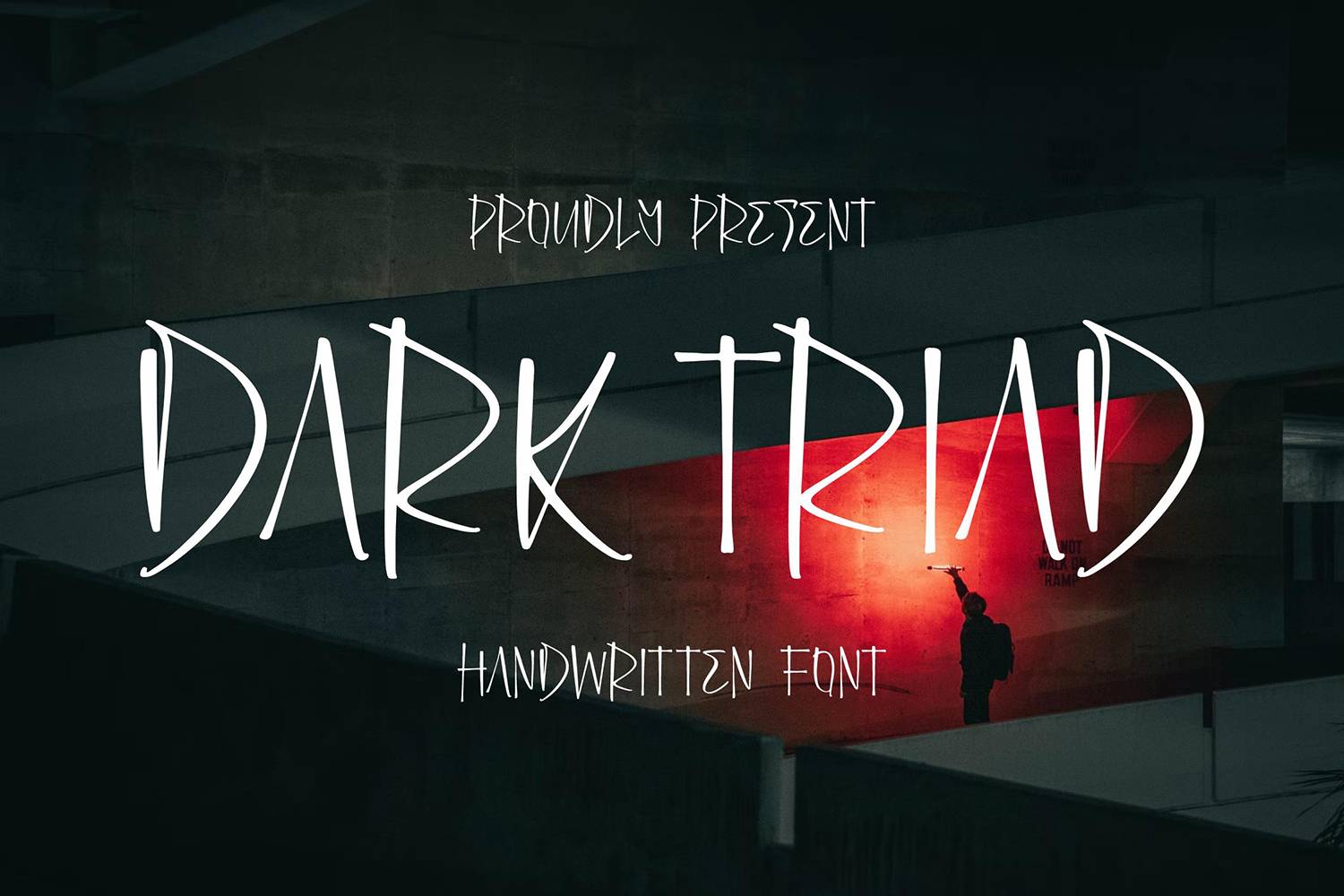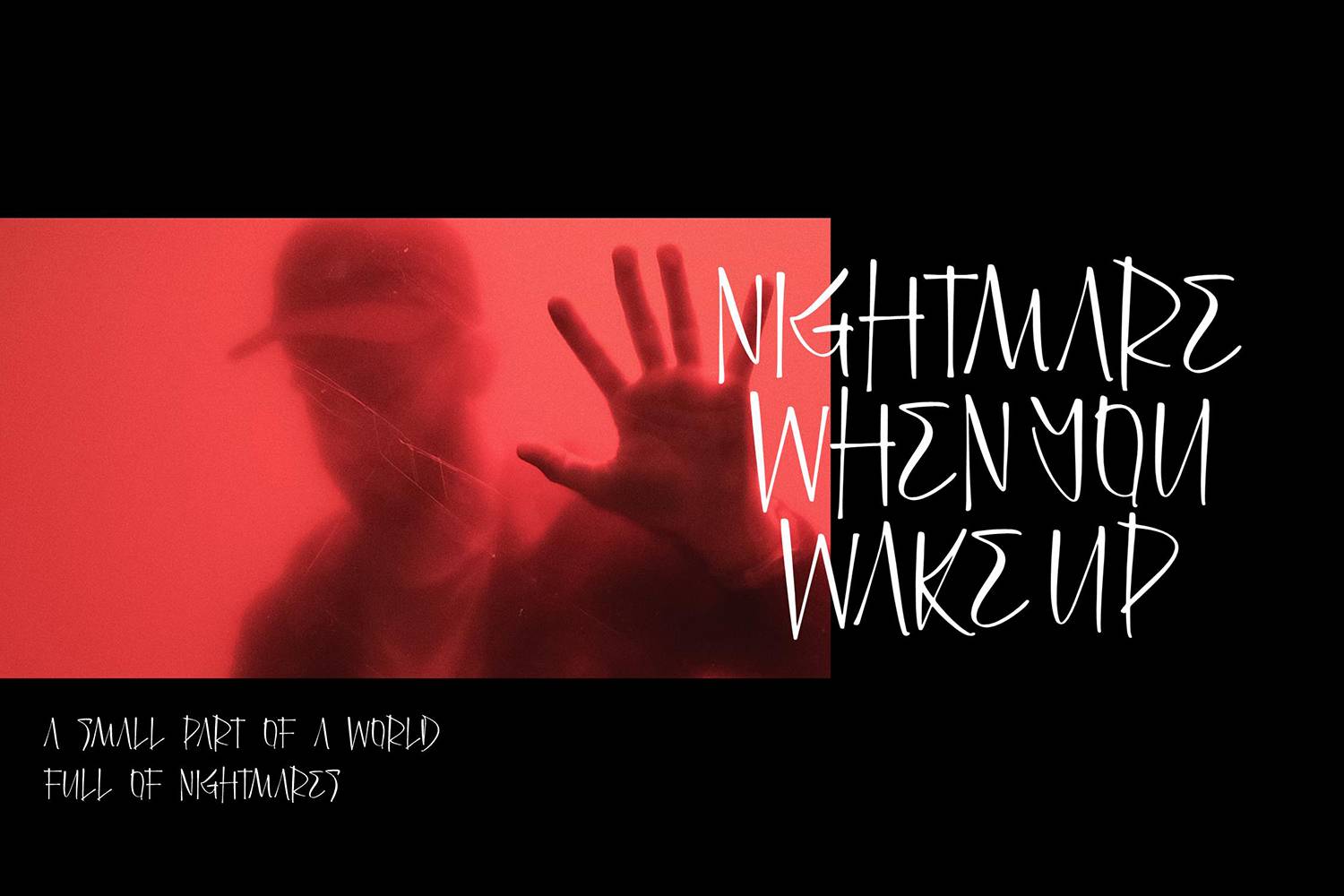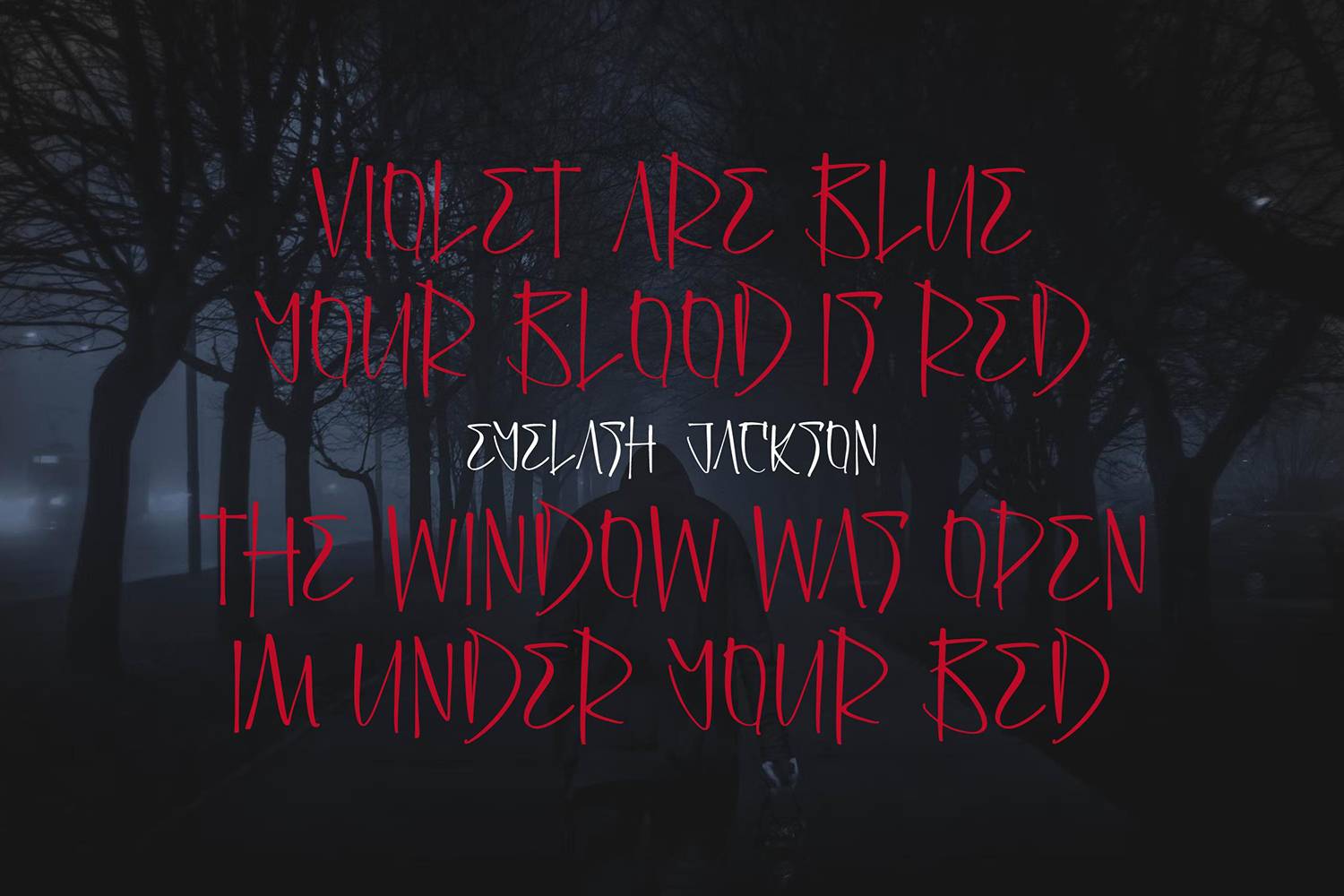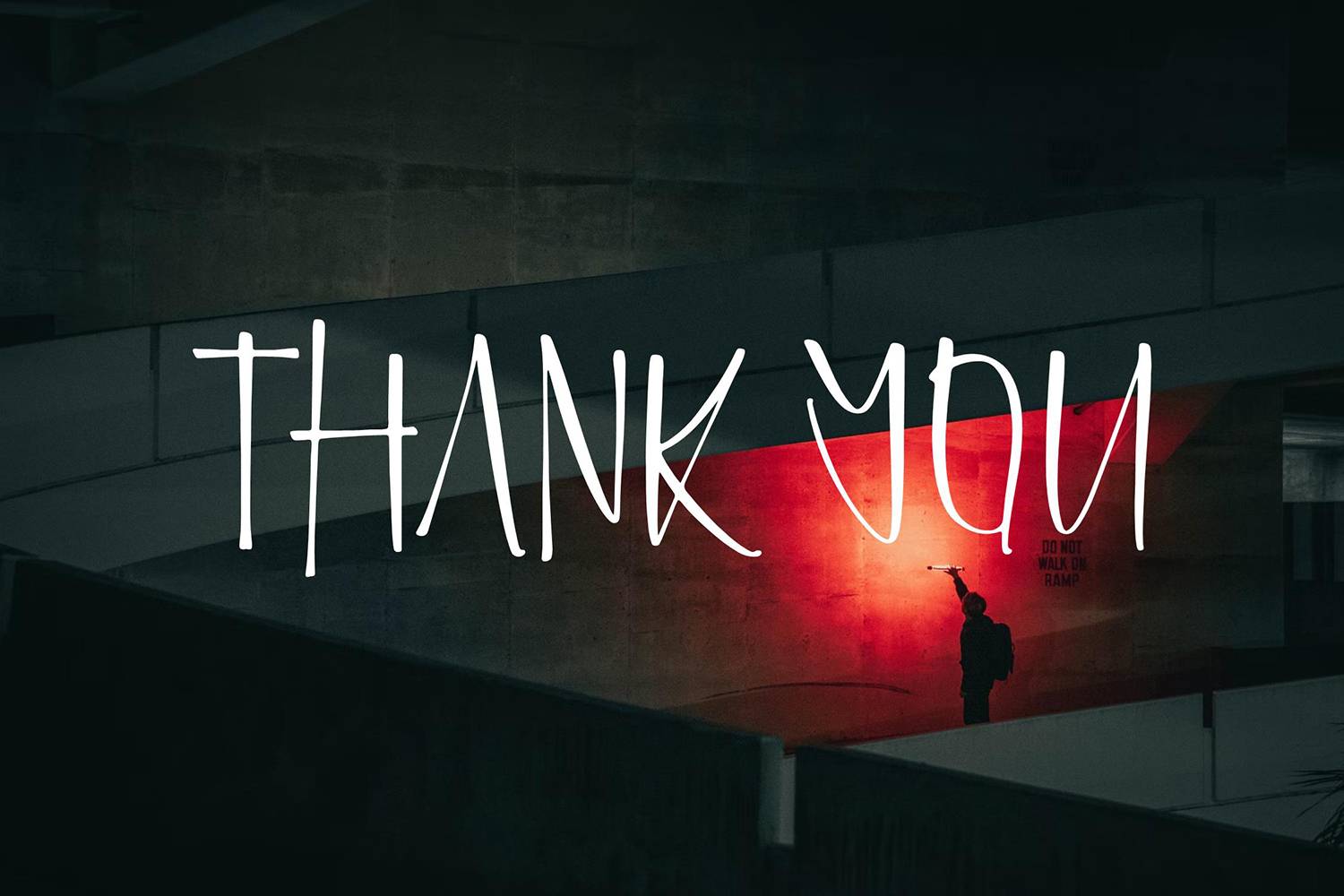
Dark Triad is a narrow, hand-drawn sans serif font that features tall, thin, and spiky letterforms with a quirky, slightly eerie vibe. Its irregular strokes and sharp angles give it a distinct, edgy personality, making it ideal for creative projects that want to convey a sense of mystery, alternative style, or playful darkness. This font works well in logos, posters, and headlines where a unique, unconventional look is desired.
Dark Triad Font
About Dark Triad Font